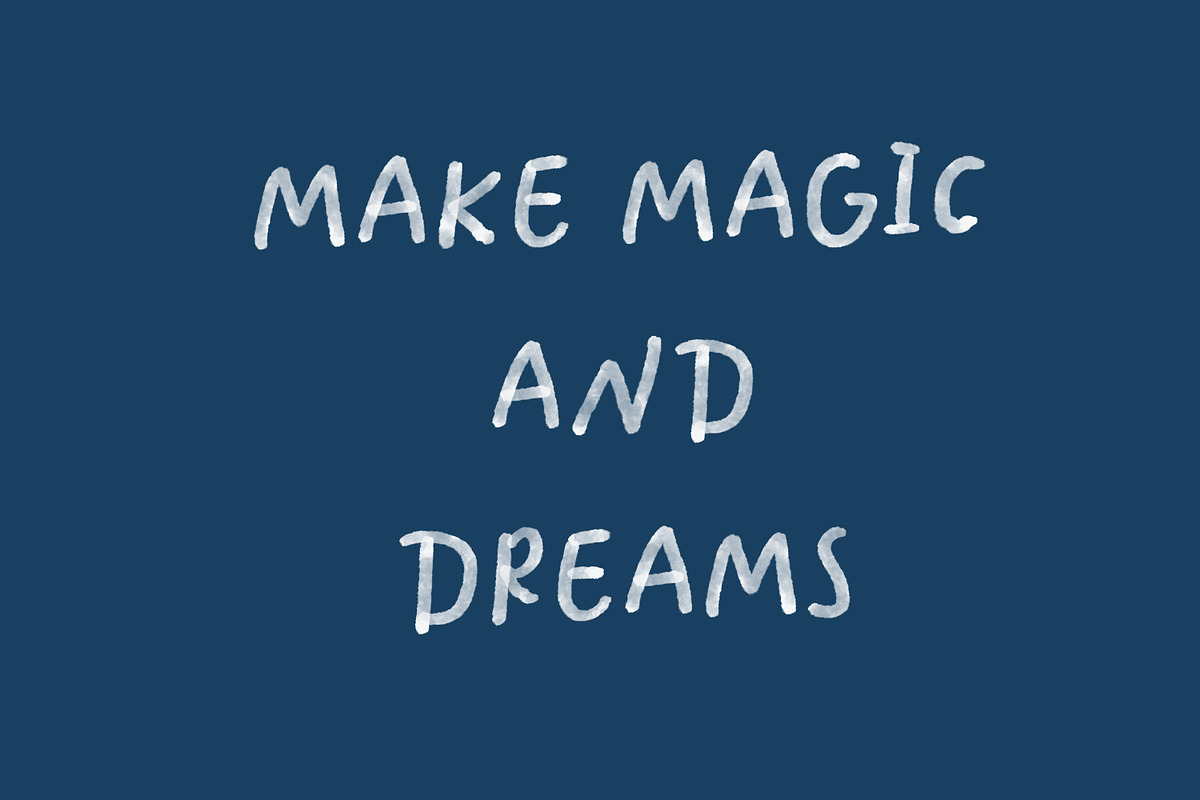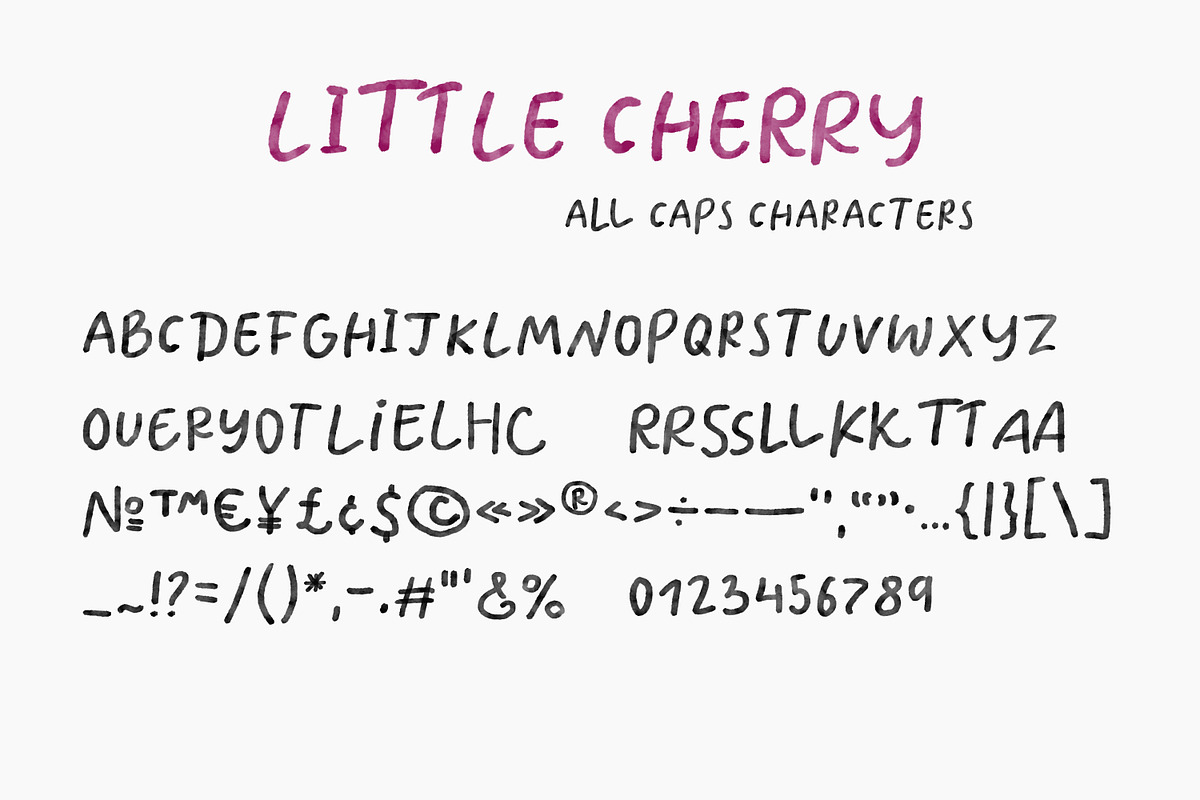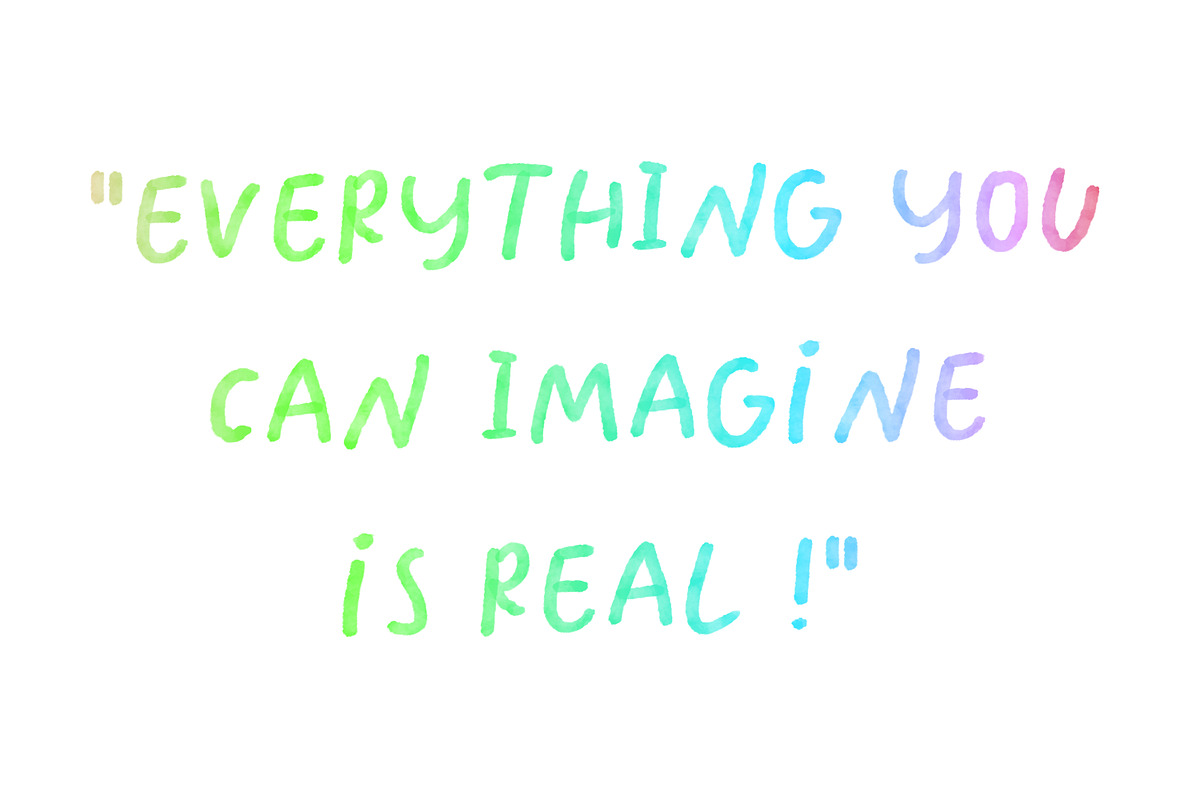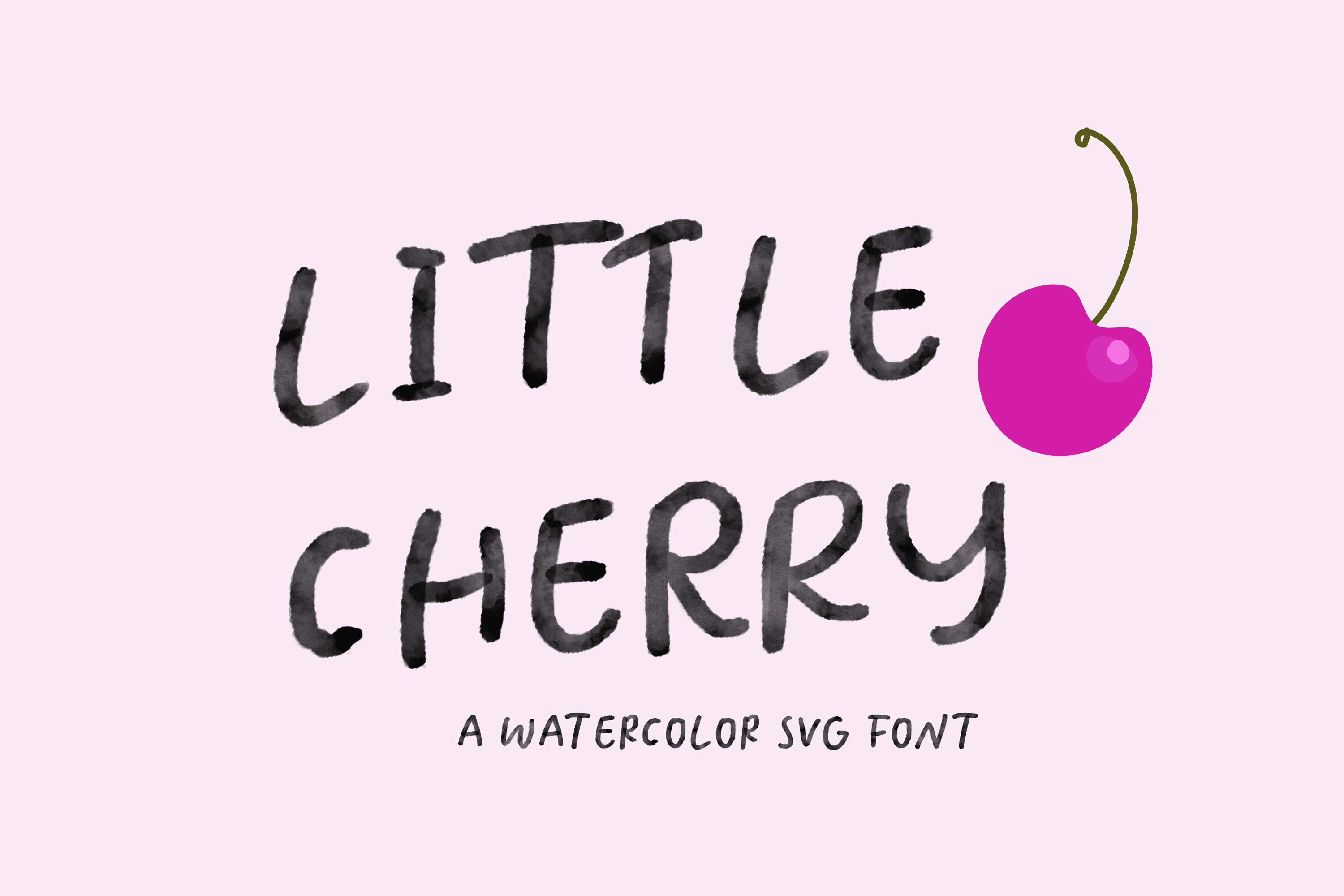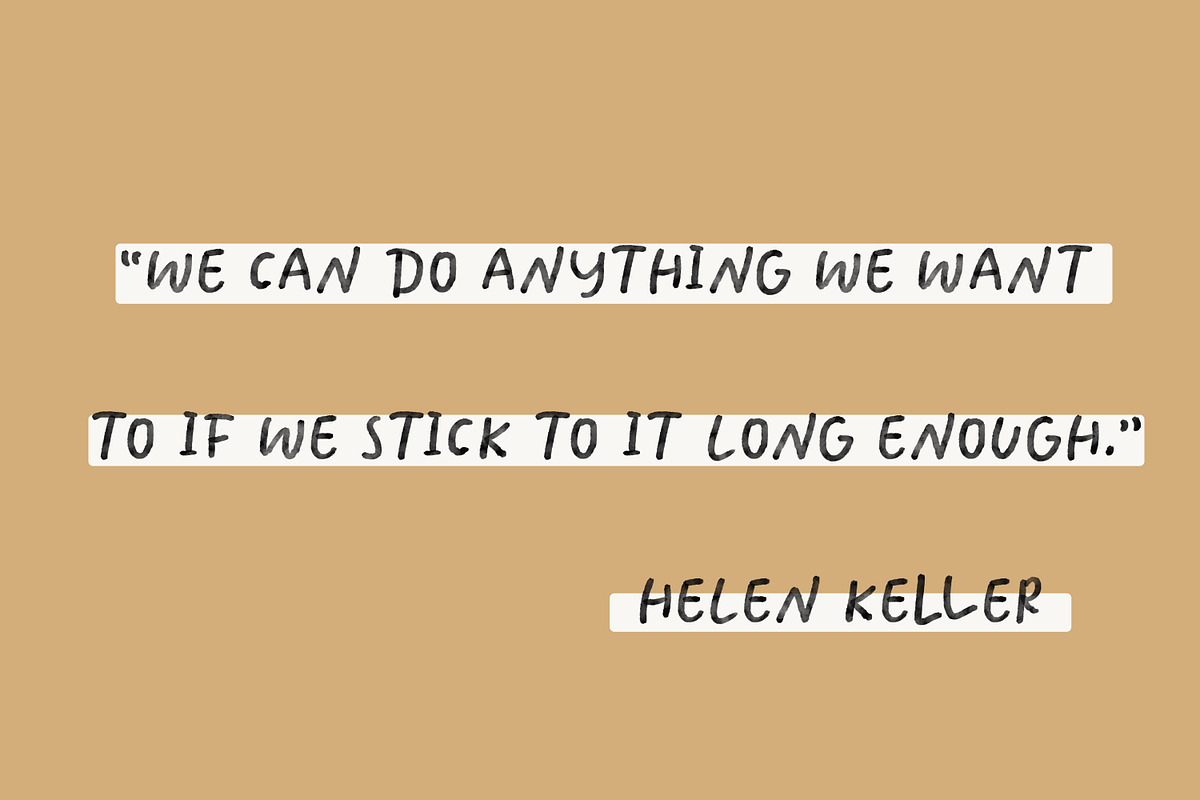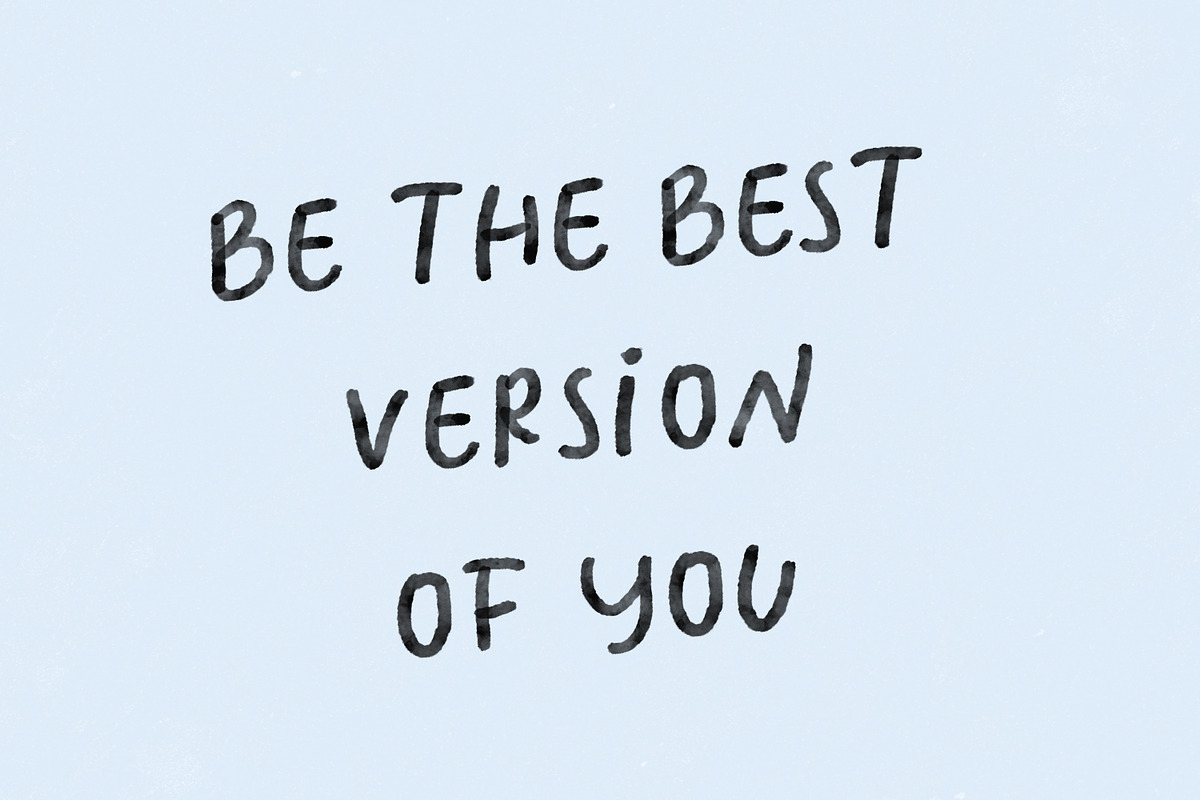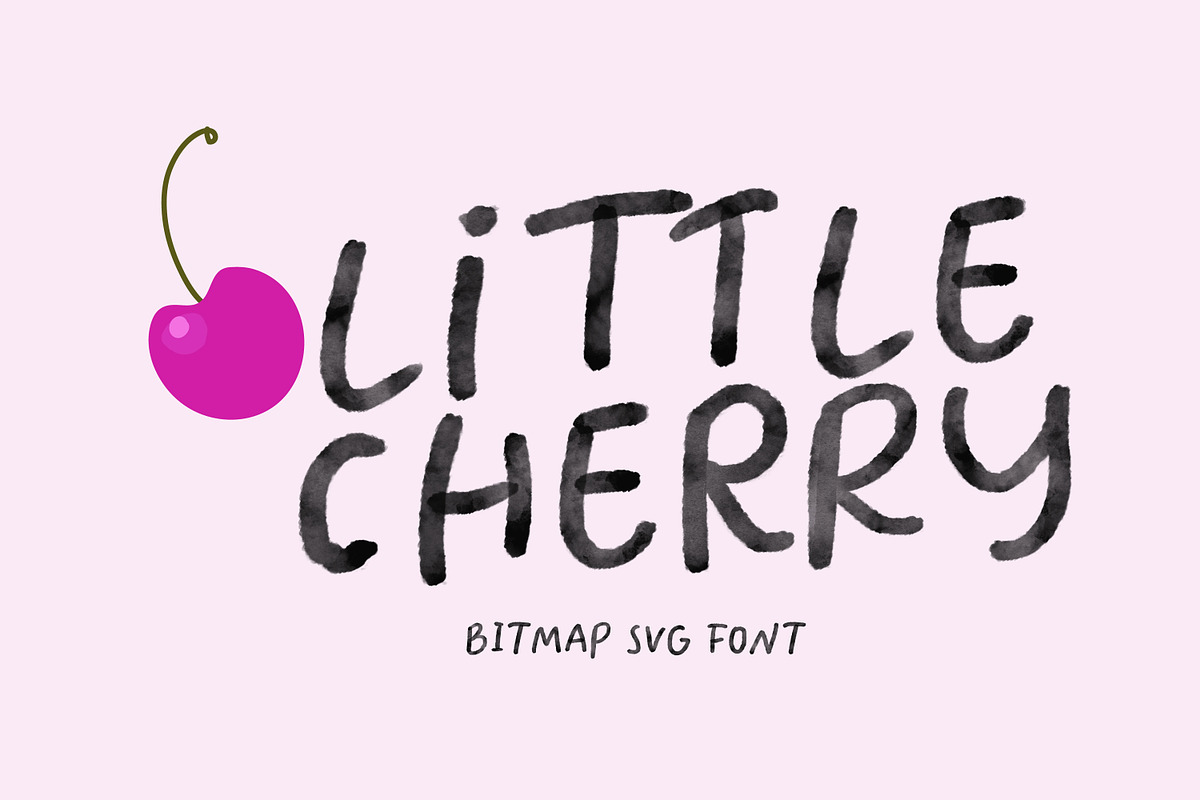
Little Cherry SVG watercolor font
Little Cherry is All Caps watercolor SVG font. It is perfect for social media posts, quotes, posters, flyers, invitations and much more.